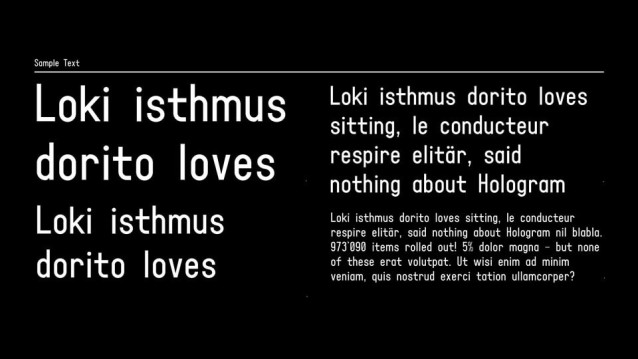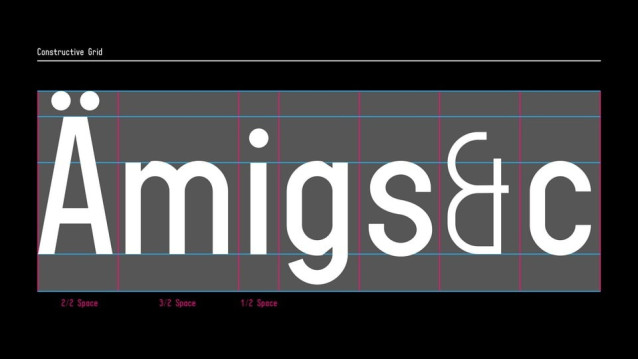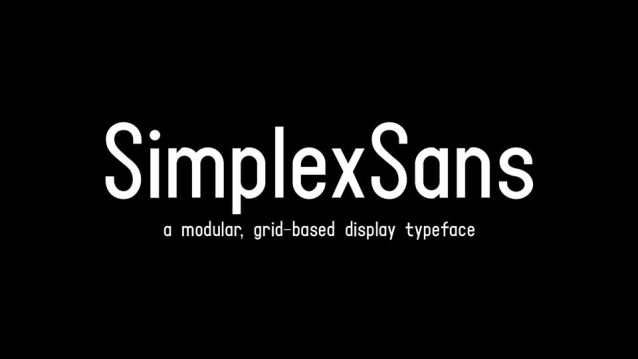
Simplex Sans Font
Simplex Sans Font is a typeface made up of 150‭ ‬characters and glyphs across 4‭ ‬weights‭: ‬Light‭, ‬Regular‭, ‬Medium and Bold‭. ‬Each‭ ‬of these instances has both‭ ‬a standard and italicised version‭.‬
This was a personal project to create a contemporary‭, ‬clean and simple typeface‭, ‬following geometry in using perfect curves and‭ ‬straight lines‭. ‬The aim was to create something that can work across different situations‭.‬